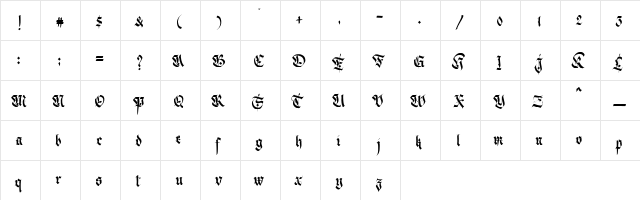
Hurufraktur Regular
| Foundry | Hurufraktur |
| Designer | Hurufraktur |
Design Context for Hurufraktur Typeface
Hurufraktur draws on the rich tradition of blackletter calligraphy, with dense, angular strokes that evoke medieval manuscripts and old-world craftsmanship.
A natural fit for music packaging, gothic editorial design, and any project that needs historical weight.
Font Pairing: Pair with a clean neutral sans-serif for body copy to let Hurufraktur's character lead without overwhelming the composition.
Pro Tip: Reserve Hurufraktur for display and logo use — pair it with a clean sans-serif for body copy to prevent the composition from feeling oppressive.